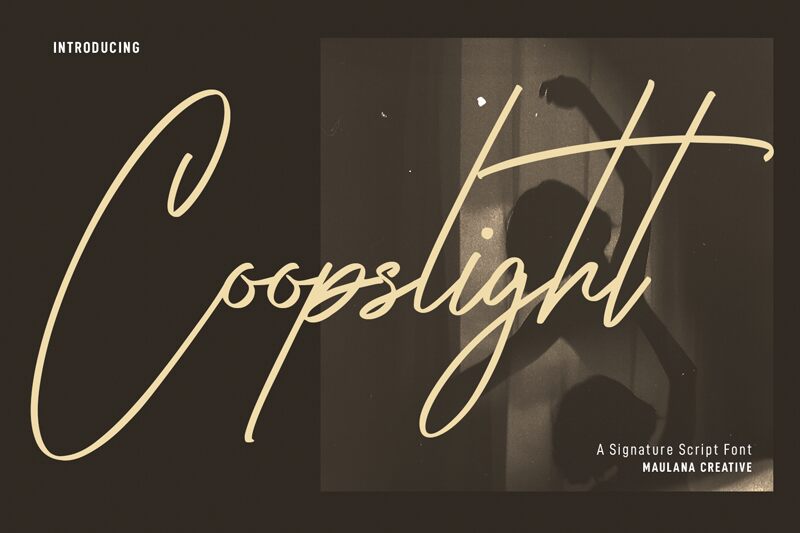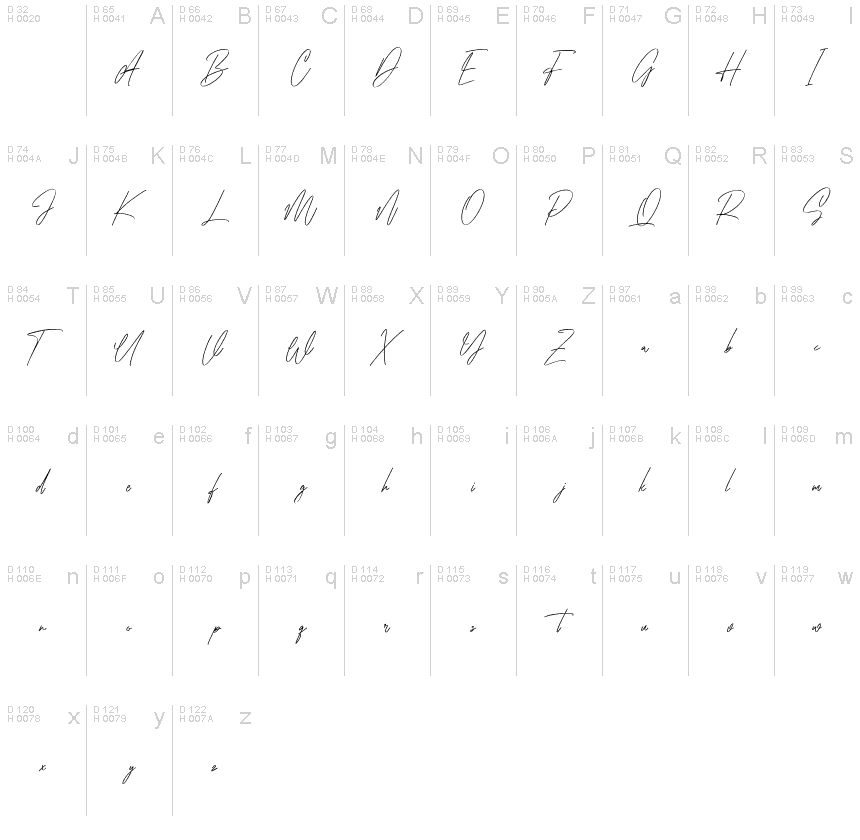
Coopslight Free Regular
Coopslight by Maulana Creative is an exquisite extra-light, condensed font with a handwritten signature style that exudes elegance and sophistication. This font is perfect for projects that require a personal touch, such as wedding invitations, greeting cards, or branding materials for high-end fashion brands. Its slim and condensed structure allows it to stand out while remaining legible, making it ideal for use in logos or headlines. With its unique style and versatile application, Coopslight is sure to elevate any design project to the next level of refinement and class.